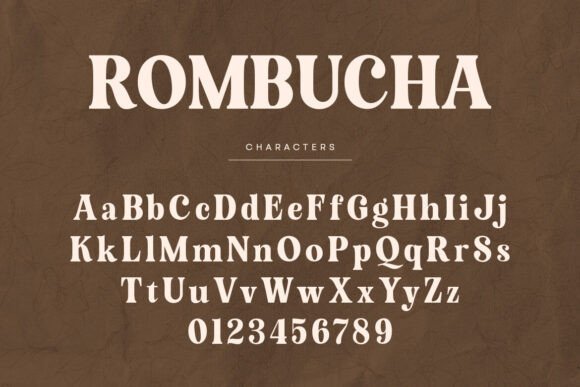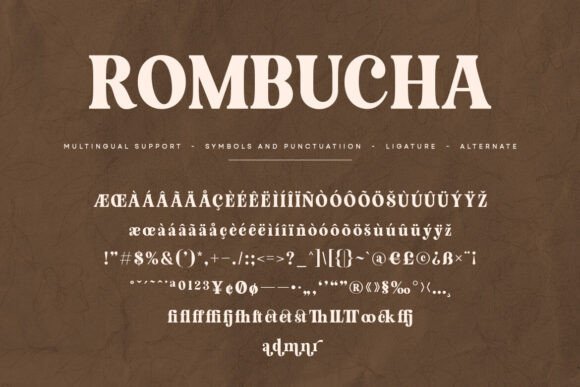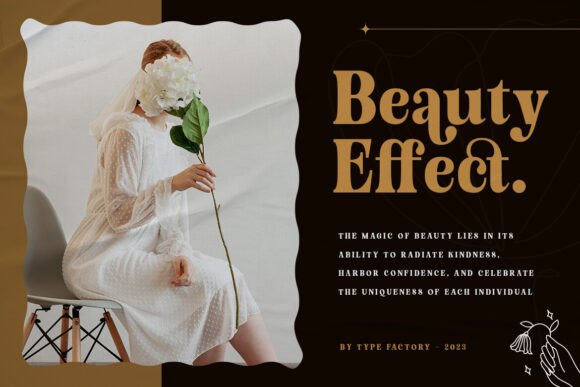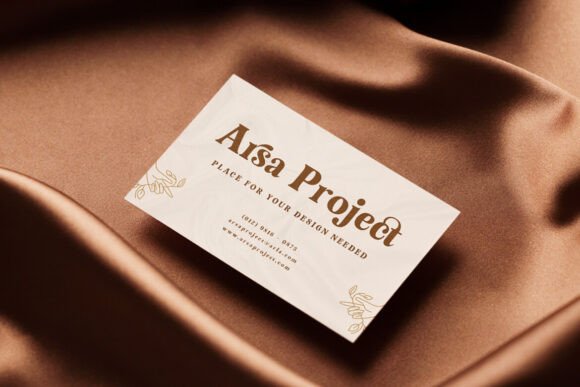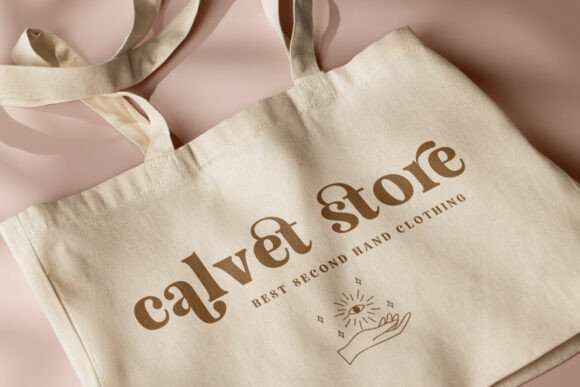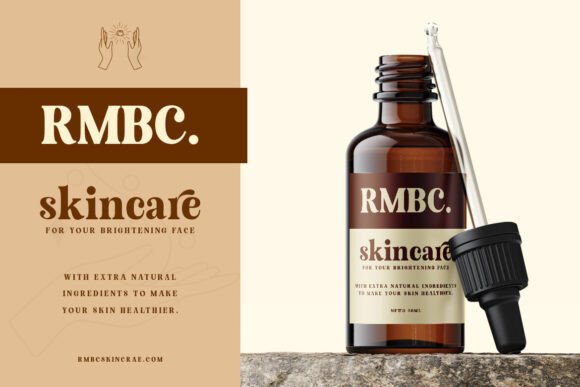
Introduction to Rombucha Font
Have you ever found yourself staring at a blank canvas, searching for the perfect font to bring your creative project to life? It’s that moment of frustration and excitement when the right design resource can make all the difference. For designers, finding the perfect font can be a game-changer, elevating a simple project into a stunning work of art.
Enter Rombucha Font, a stunning serif font that exudes sophistication and modern allure. With its elegant serifs and polished letterforms, Rombucha is the perfect choice for high-quality editorial designs, lavish branding, and select invitations. Whether you’re working on a free download or a paid project, Rombucha is sure to deliver a striking aesthetic that will leave a lasting impression. Its harmonious proportions ensure readability, while its transparent background makes it a versatile design resource for both print and digital realms.
Key Features of Rombucha Font
- Unique, hand-drawn design with a modern twist, perfect for creative projects and design resources.
- Transparent background, allowing for seamless integration with any design element.
- Designed to be highly legible at various resolutions, including 72 dpi and 300 dpi.
- Perfect for designers looking for a unique, high-quality font to enhance their design resources and creative projects.
Honest Review: Rombucha Font
As a designer, I’m always on the lookout for high-quality design resources to elevate my creative projects. Recently, I stumbled upon the Rombucha Font, and I’m excited to share my honest review with you.
- ✨ Unique and modern design aesthetic that adds a touch of sophistication to any project.
- ✨ Highly legible and versatile, making it suitable for a wide range of creative projects, from branding to editorial design.
- ⚠️ Limited language support, which may be a concern for designers working with non-English text.
- ⚠️ Transparent background option is not always seamless, which can be a challenge for designers requiring precise control.
Overall, I’m impressed with the Rombucha Font’s unique design and high-quality appearance. While it may have some limitations, I believe it’s a solid addition to any designer’s toolkit. If you’re looking for a modern and stylish font for your creative project, the Rombucha Font is definitely worth considering.
Tips for Getting the Most Out of Rombucha Font
To get the most out of this font, experiment with different font sizes, colors, and combinations. You can also pair it with other fonts or design elements to create a unique visual identity.
The Rombucha Font is ideal for:
- Designing logos and branding materials
- Creating titles and headings for presentations and documents
- Adding a touch of elegance to digital products and websites
Alternatives to Rombucha Font
When compared to Rombucha Font, Alex Brush Font offers a more delicate and whimsical feel, making it suitable for projects requiring a touch of elegance and sophistication. It’s available for free download and can be used in various design applications.
Q: Does the Rombucha Font come with a transparent background, and how can I use it in design software?